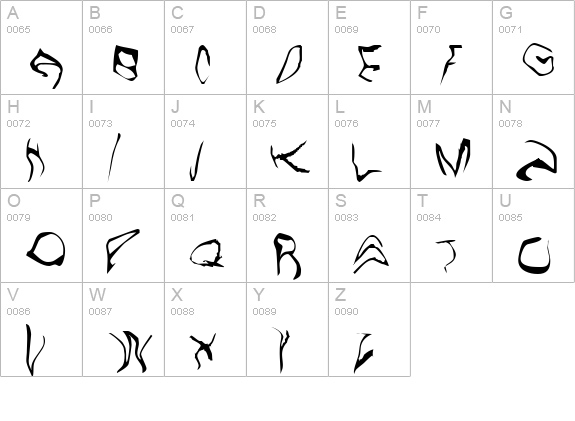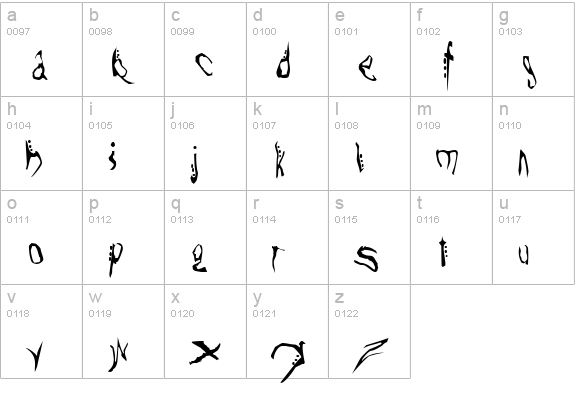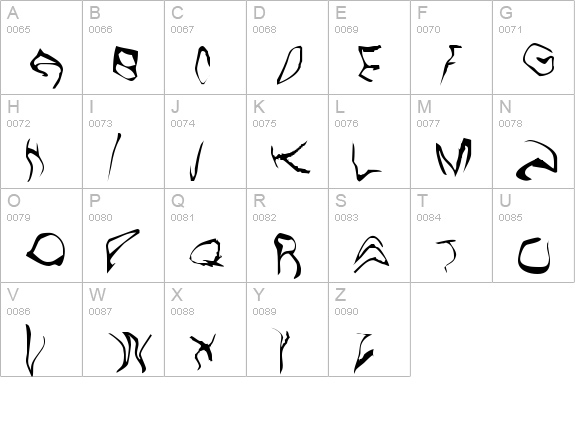
Willo the Wisp Font Details
Introducing Willo the Wisp Font, a whimsical and enchanting typeface that exudes a magical aura with every letter. This font is designed to captivate and transport you to a world of fairy tales and wonderment. Its delicate curves and playful strokes give it an ethereal quality that is perfect for adding a touch of charm to any design project. Willo the Wisp Font is not only visually appealing but also incredibly versatile. It can be used for a wide range of creative purposes, from logo design and branding to greeting cards and invitations. Its unique and distinctive appearance is sure to make your designs stand out from the crowd. One of the best features of Willo the Wisp Font is that it is absolutely free! Yes, you read that right. This font is freely available to download at FontsMarket.com, a leading platform for high-quality fonts. Now you can add a touch of whimsy to your designs without breaking the bank. Whether you are a professional designer or a hobbyist, Willo the Wisp Font is a must-have in your font collection. Its versatility, elegance, and playful charm make it a font that can be used time and time again, adding a touch of magic to all your creative endeavors. So why wait? Go ahead and download Willo the Wisp Font today from FontsMarket.com and let your imagination run wild. Embrace the enchantment of this free font and bring your designs to life with a sprinkle of whimsy.